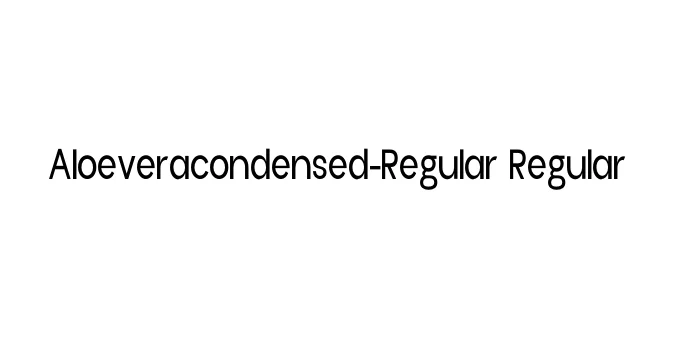
Aloeveracondensed-Regular Regular
| Category | Condensed Sans Serif |
| Similar Fonts | Bebas Neue, Futura Condensed, Roboto Condensed |
Aloeveracondensed-Regular is a sophisticated and streamlined typeface designed to provide maximum impact in narrow spaces. Characterized by its tall x-height and slender letterforms, this font bridges the gap between modern minimalism and decorative flair. It is specifically engineered for high-end branding projects that require a sense of elegance and vertical efficiency without sacrificing readability.
Developed with a focus on contemporary aesthetics, Aloeveracondensed-Regular draws inspiration from boutique editorial layouts and organic lifestyle marketing. The font's clean lines and smooth curves make it a versatile choice for designers looking to create a high-fashion or luxury feel. It performs exceptionally well in both print and digital environments, offering a polished look for those who value refined typography.
Aloeveracondensed-Regular Best Uses
Perfect for magazine headlines and narrow column headers where space is limited.
Ideal for luxury logos, particularly in the fashion, beauty, and wellness sectors.
Great for tall, slender product containers such as wine bottles or skincare tubes.
Excellent for high-impact hero sections and vertical social media graphics.